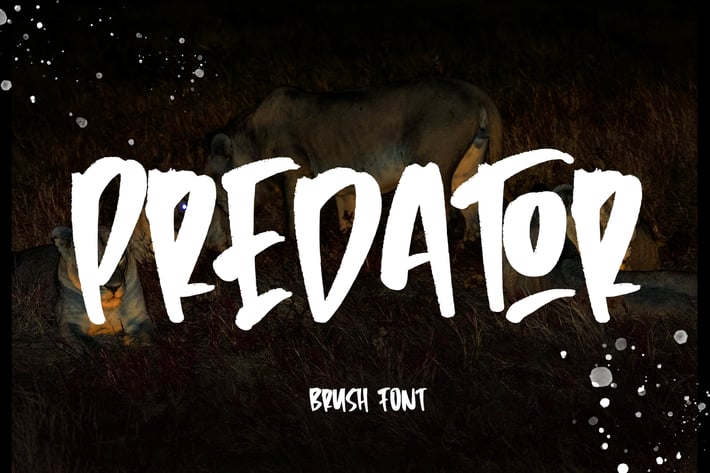
Predator - Brush Font
Predator - Brush Font that has a distinctive character that is very thick and elegant to use
Predator is a relaxed and flowing Handwritten Font. Incredibly versatile, this font fits a wide pool of designs, elevating them to the highest levels. Add this font to your favorite creative ideas and notice how it makes them come alive!